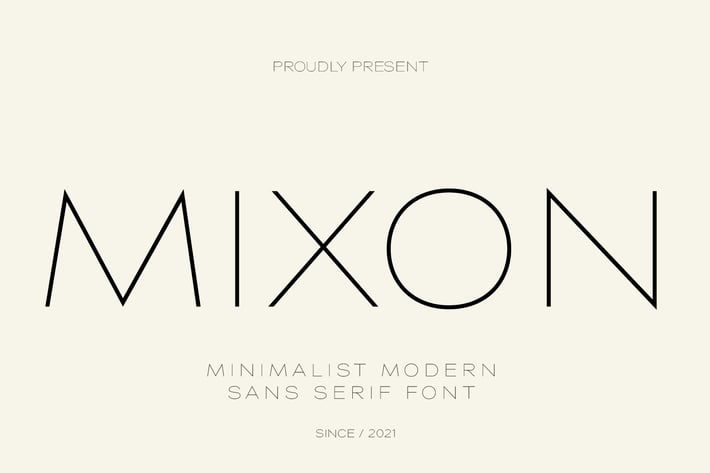
Mixon Beautiful Advertisement Font
Mixon Font is modern and beautiful advertisement font. It can easily be matched to an incredibly large set of projects like logo, package, advertisement, magazine, ,so add it to your creative ideas and notice how it makes them stand out!